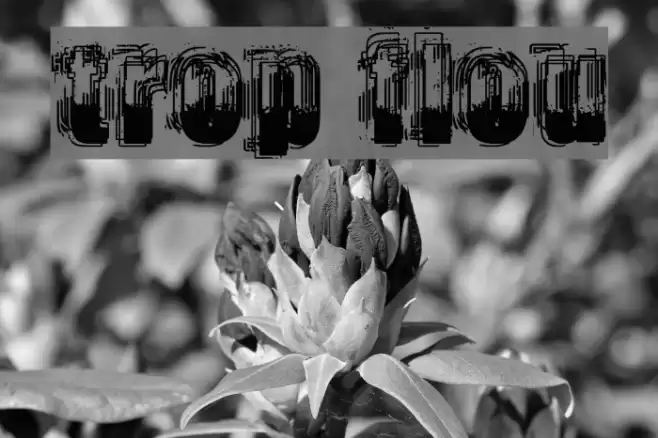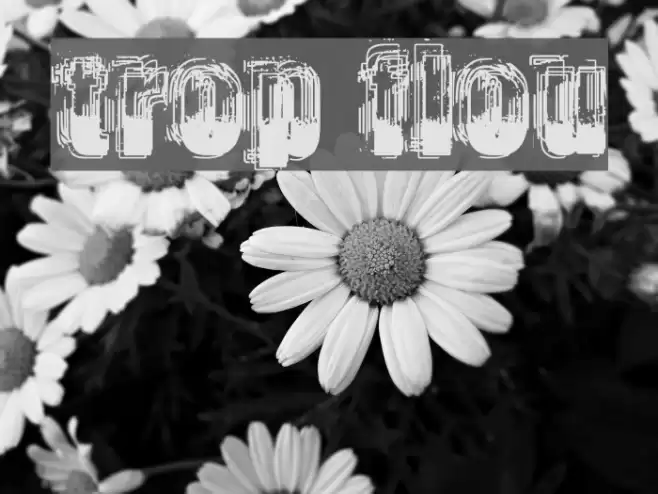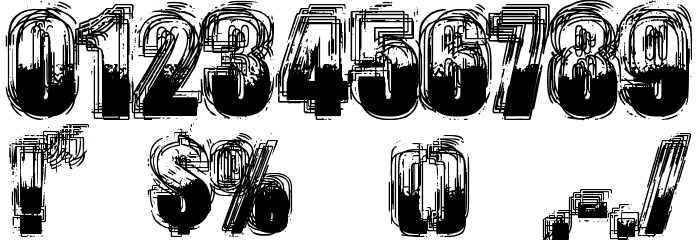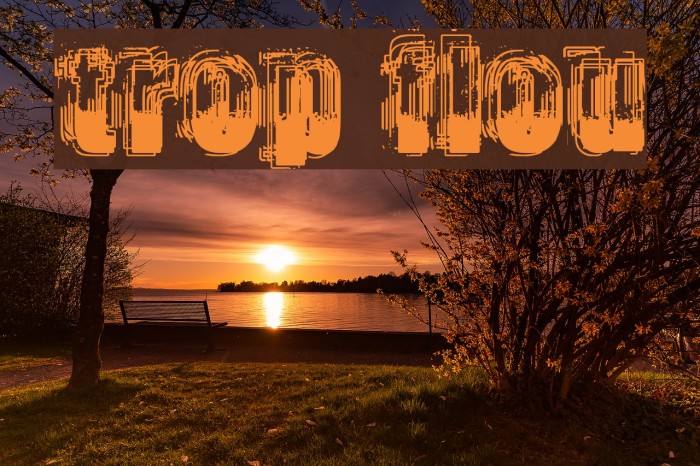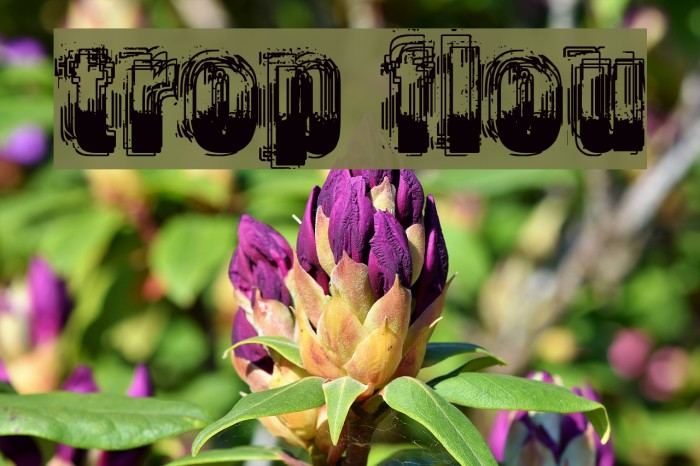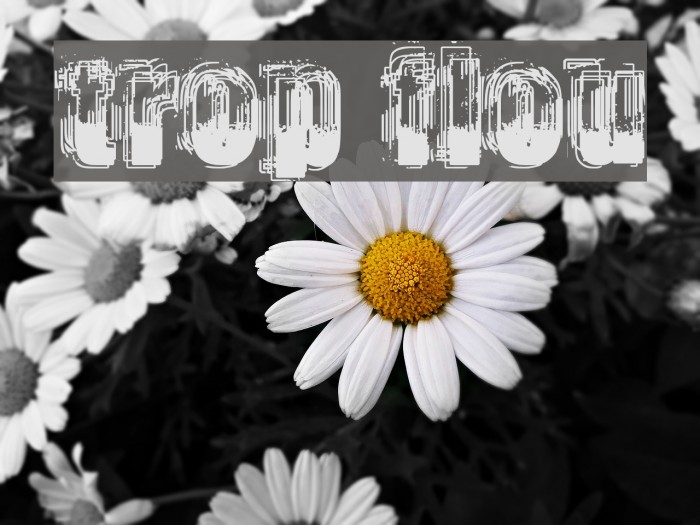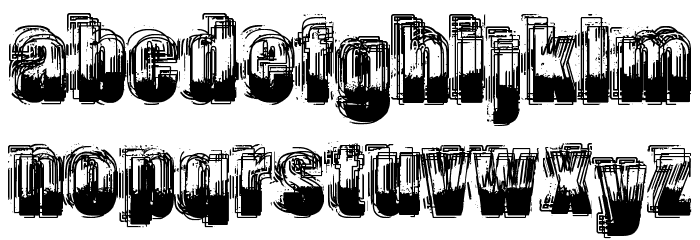
trop flou Font
trop flou Description
This font features a bold, distressed style with a high level of texture and visual noise, giving it a grungy and edgy appearance. The characters are thick and heavily outlined, with irregularities that create a sense of movement and chaos. This design choice makes it stand out and adds a unique, artistic flair. The uppercase and lowercase letters maintain consistent proportions, while the numbers and special characters follow the same distressed aesthetic. The overall look is dynamic and eye-catching, suitable for projects that require a bold statement.
A bold, distressed font with a grungy, textured style from Crazy fonts.
- Proposed Projects: Ideal for music album covers, posters, streetwear branding, and edgy graphic design projects.
- Overall Style: Grunge, Artistic